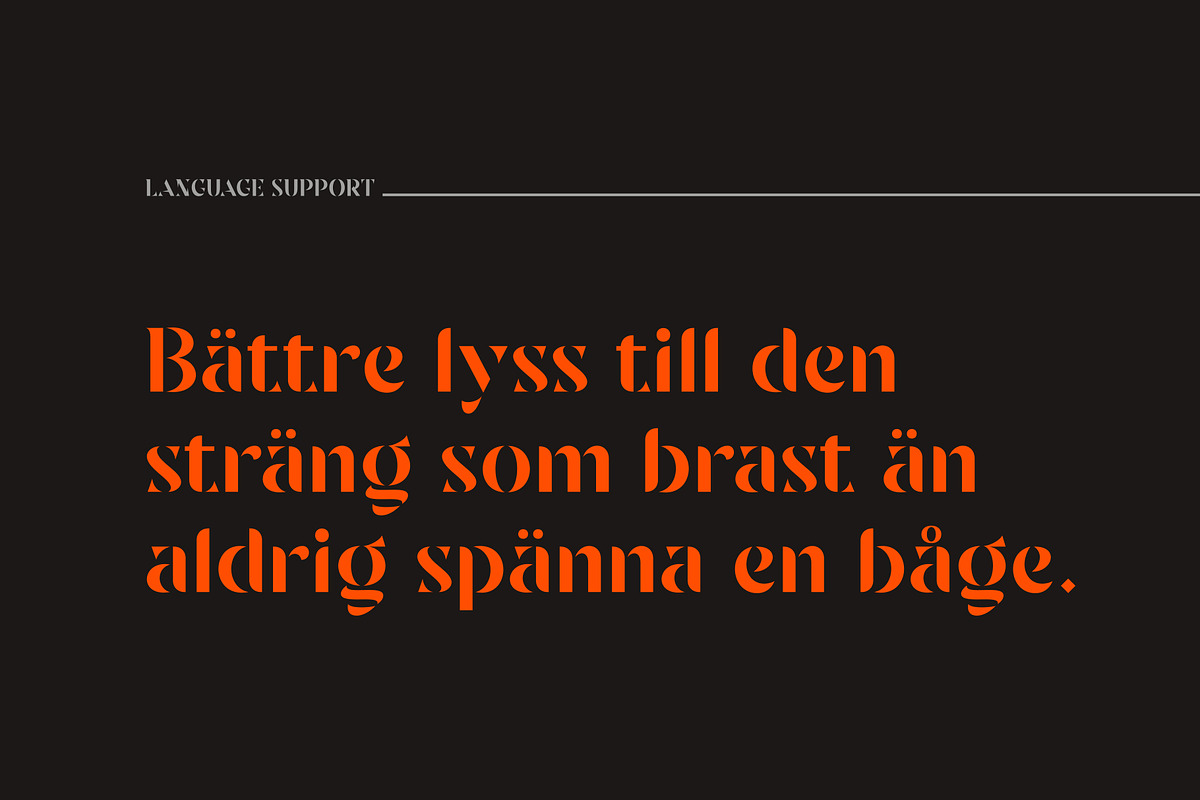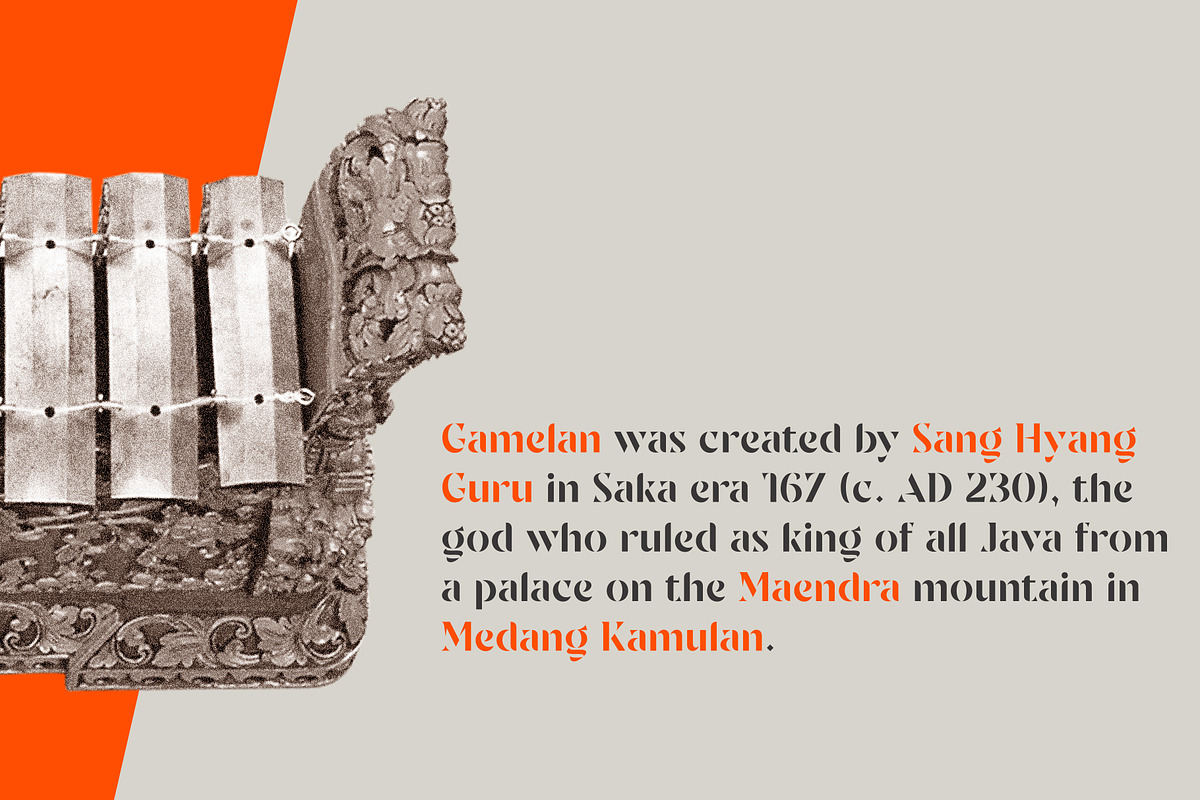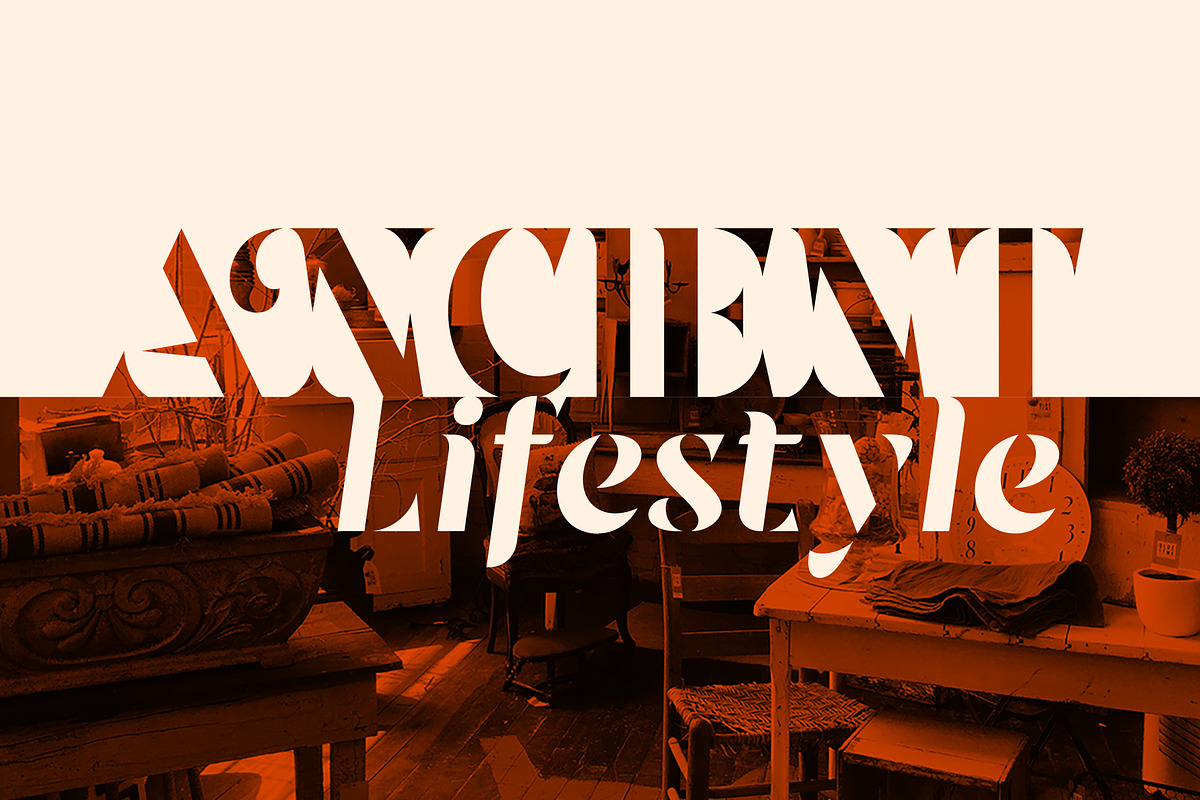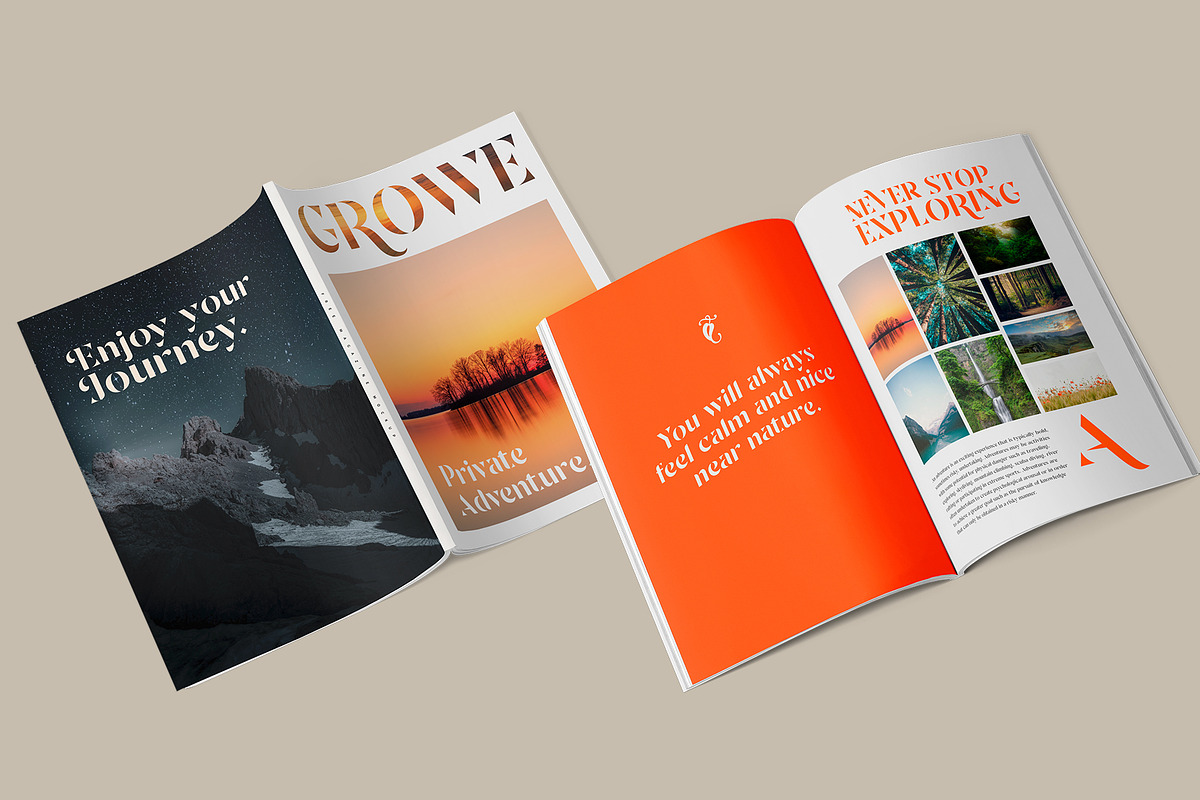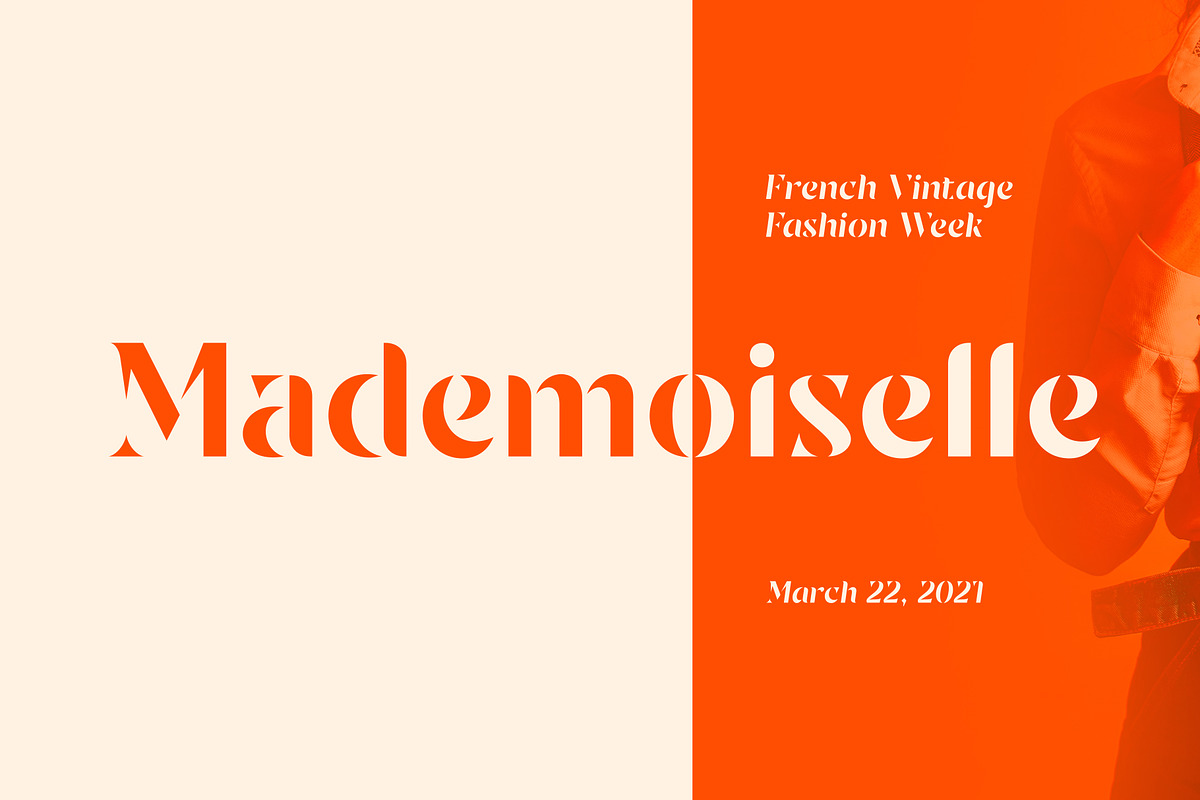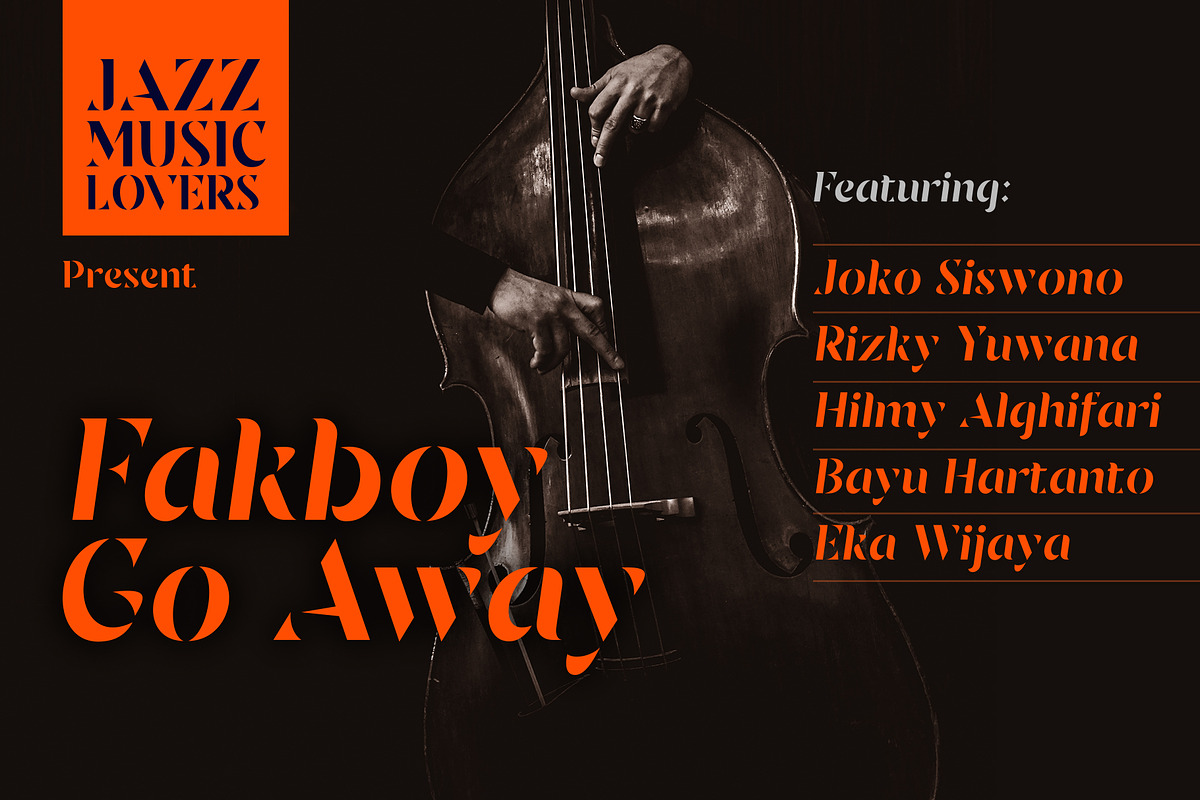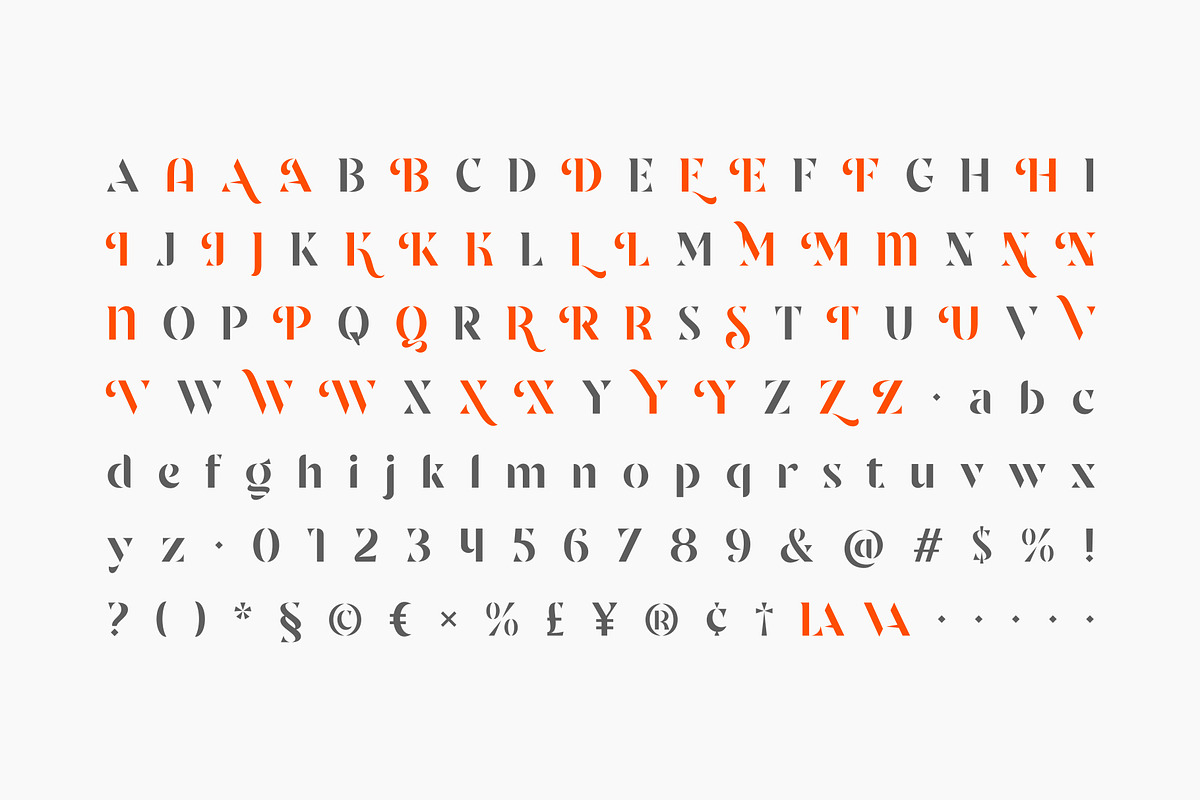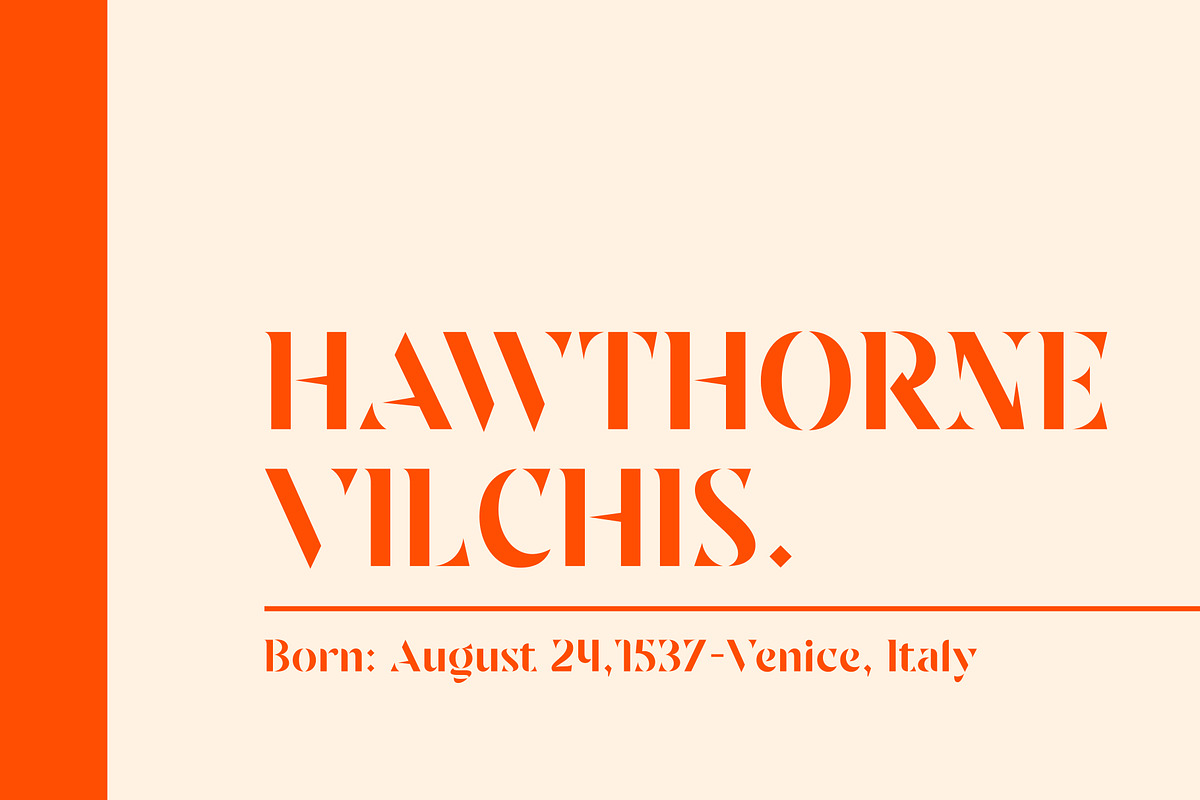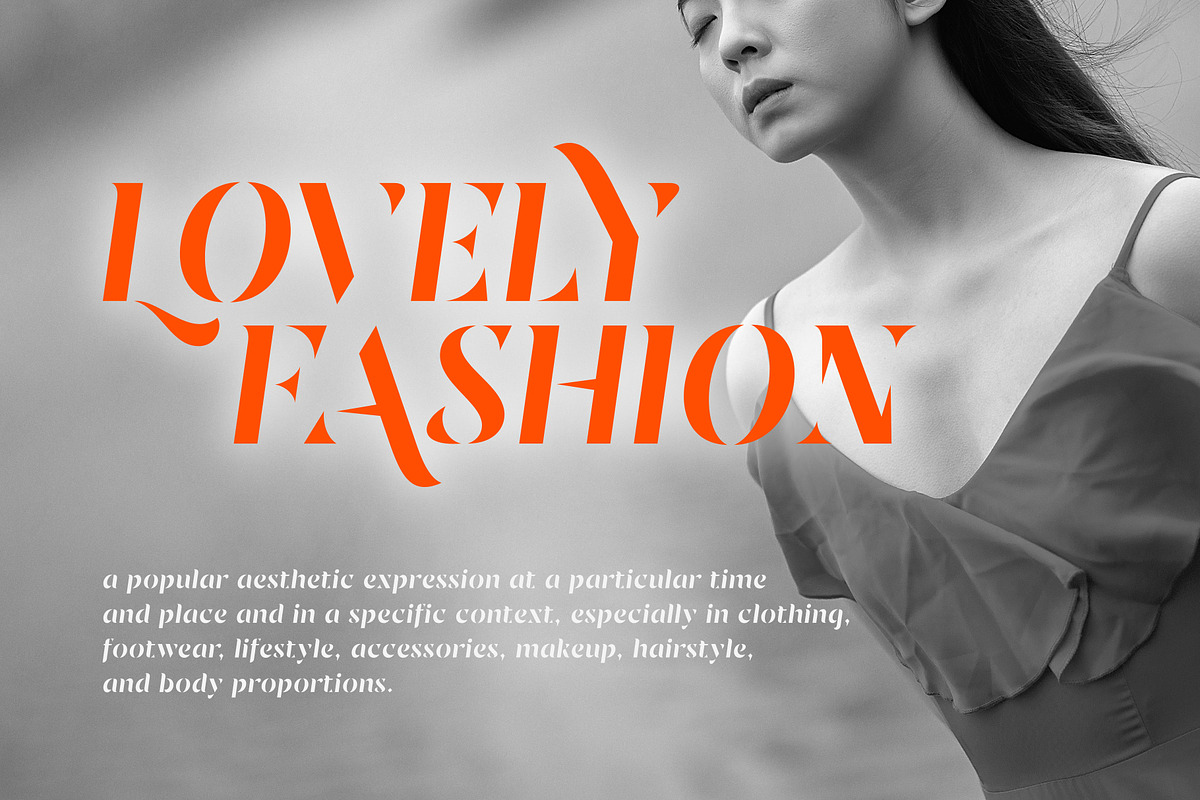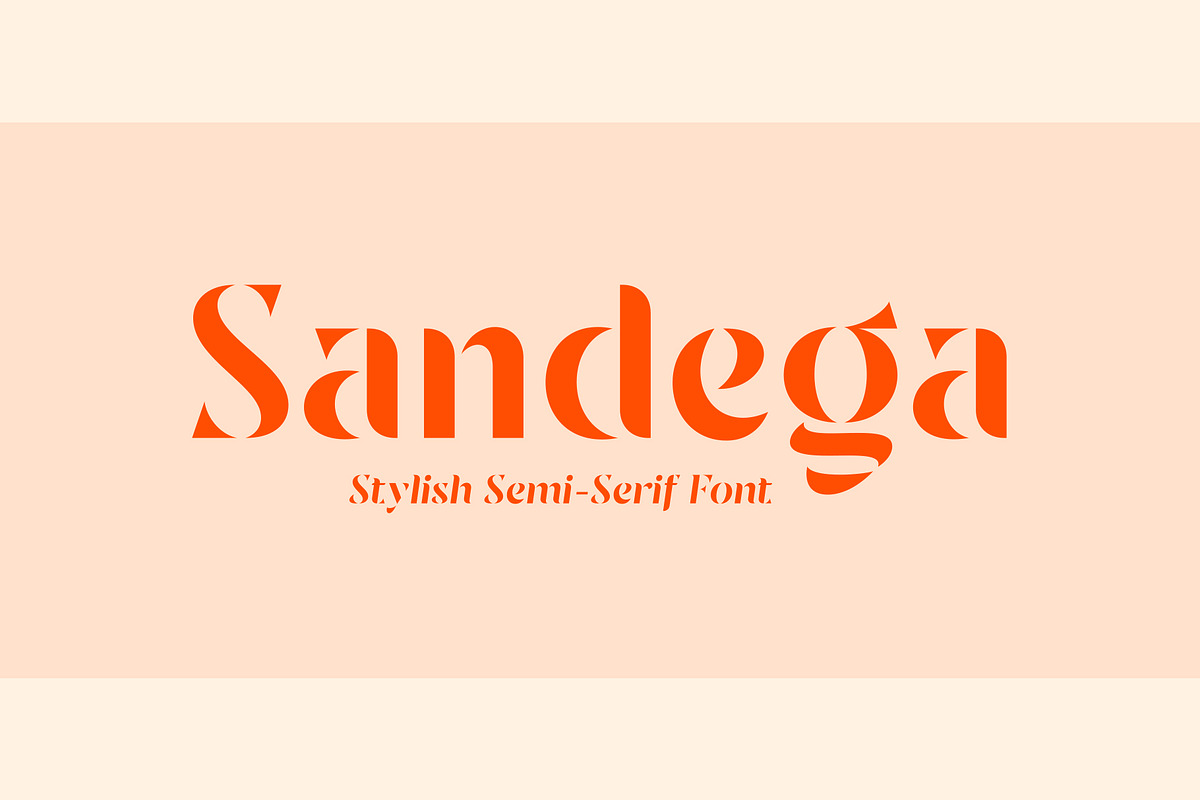
Sandega
Like mixing spices, Sandega is an experiment that blends serif, sans-serif and stencil style into one flavor. The goal is to make a font that is unique and distinct but still legible.
Opentype features such as stylistic sets are included in order to be a way of making different letters, especially for capital letters so that you can be more creative. You are also worry-free because with more than 400 glyphs, Sandega supports multiple languages.
Sandega makes a great choice for titles or logotypes and moderately long text like you would use for websites, quotes, invitation, greeting cards, flyers, and packaging.